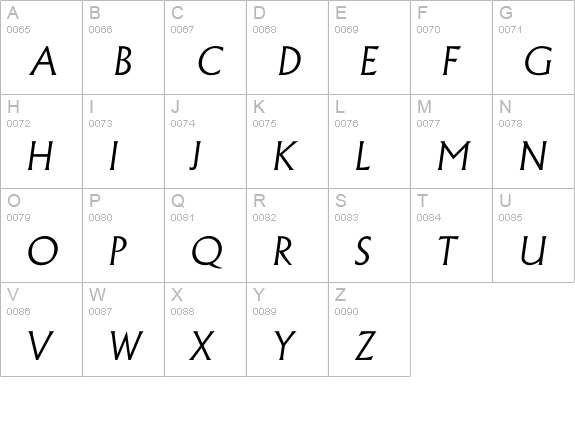
Iadelon Light Font Details
Iadelon Light is a refined, elegant variant in the Iadelon typeface family \xE2\x80\x94 well suited to elegant body text, refined sub-headings, and luxury branding.
Iadelon Light font is a stunning typeface that exudes elegance and sophistication. With its delicate strokes and graceful curves, it brings a sense of refinement to any design project. Whether used for headlines, logos, or body text, this font adds a touch of class and professionalism. What sets Iadelon Light font apart is not only its exquisite design but also its accessibility. It is available for free download at FontsMarket.com, making it easily accessible to designers and enthusiasts alike. This means that you can incorporate this beautiful font into your work without any cost or restrictions. The versatility of Iadelon Light font is another reason why it is highly sought after. It is perfect for both print and digital media, ensuring that your designs will look stunning across all platforms. The high legibility of this font also makes it ideal for long blocks of text, ensuring that your message is easily conveyed to the reader. With Iadelon Light font, you have the freedom to create captivating designs that make a lasting impression. Whether you are designing a website, crafting a logo, or creating a magazine layout, this font will elevate your work to new heights. Its timeless beauty and free availability make it a must-have for any designer's toolkit. Download Iadelon Light font for free at FontsMarket.com and unleash your creativity with this elegant and versatile typeface.